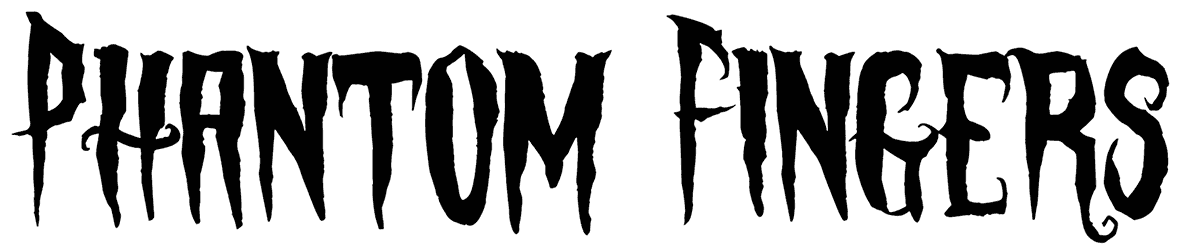
Phantom Fingers Font
It doesn’t matter whether you want to use Phantom Fingers as a horror font to share a sense of fear, dynamic, and excitement or as a holiday font to add a playful Halloween touch to your artwork; in both cases, this typeface can work perfectly.
Since its characters come with a wavy and tilted style, this all-caps Halloween font can be included in gift cards, movie posters, logos, and editorial projects.